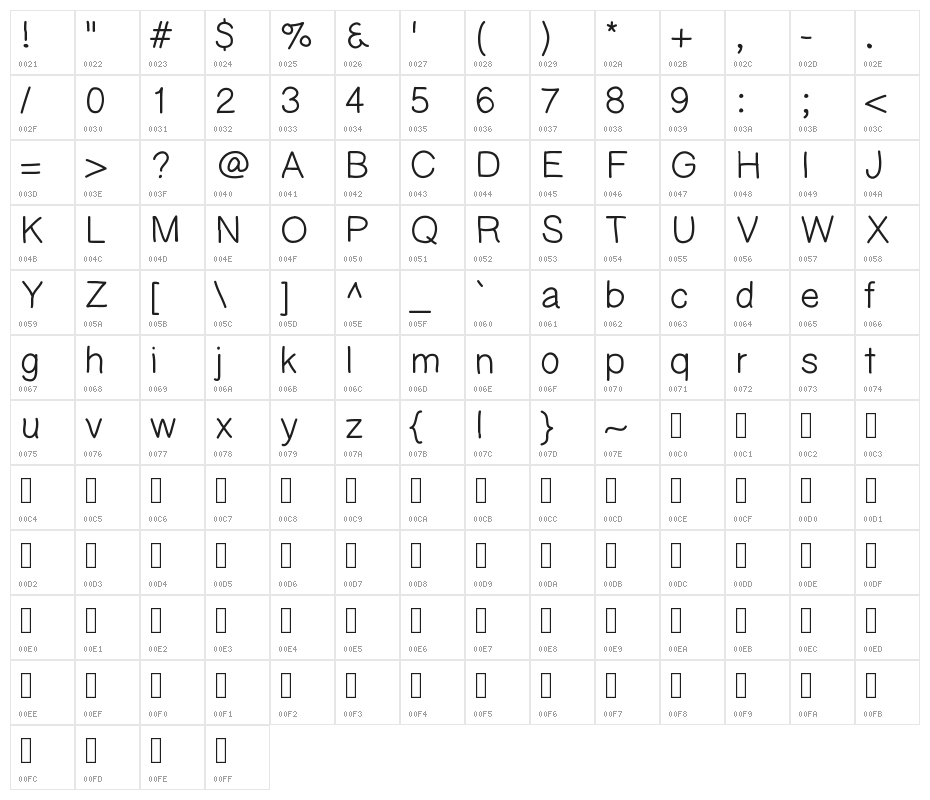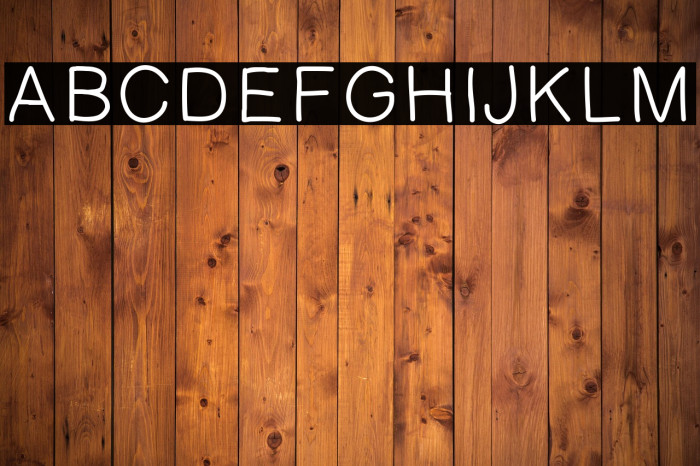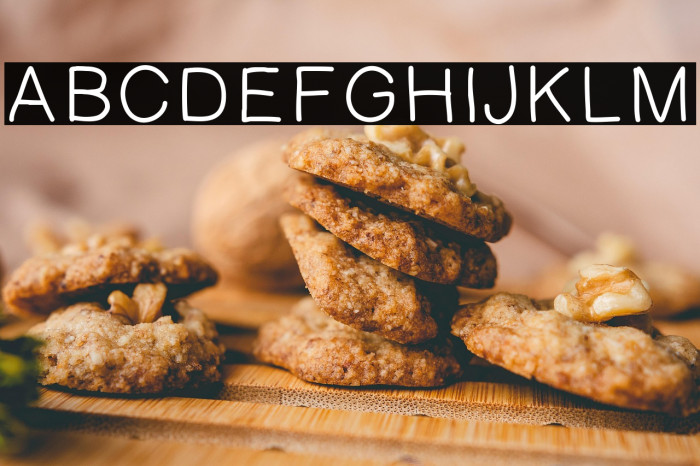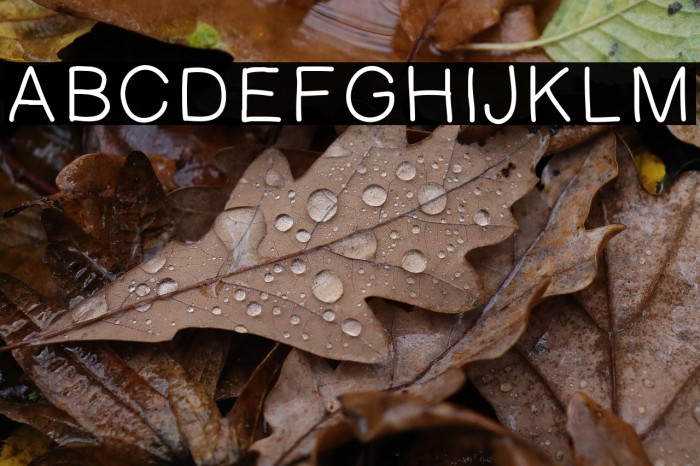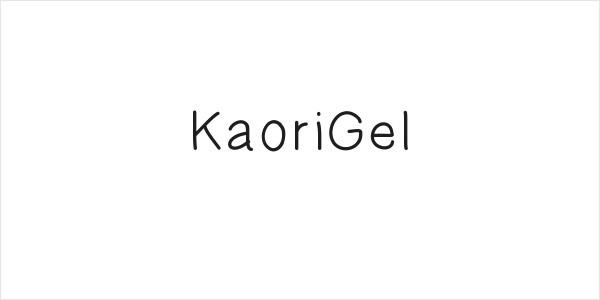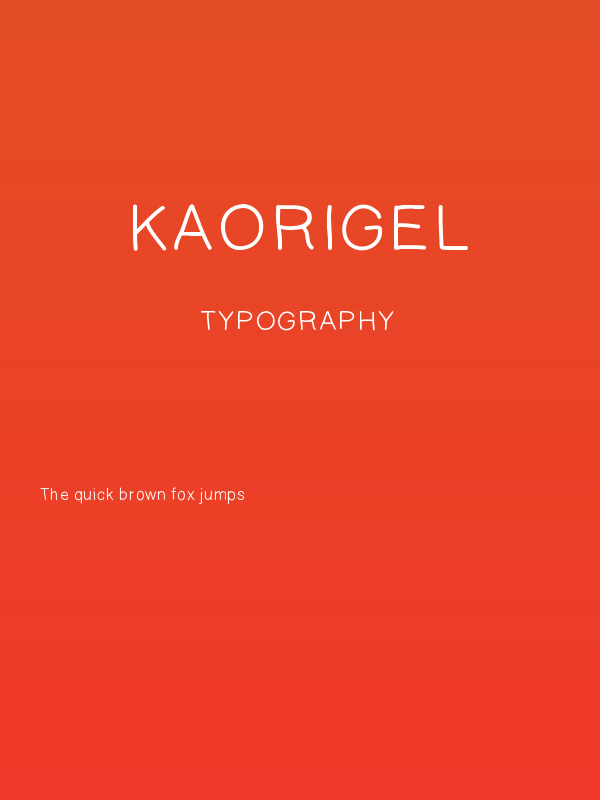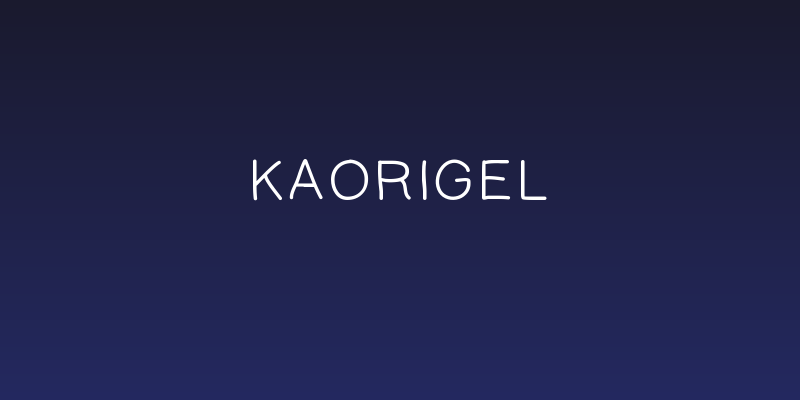
KaoriGel Font
KaoriGel Description
This font features a playful and casual handwritten style, characterized by its rounded and slightly irregular letterforms. The strokes are consistent in width, giving it a uniform appearance, while the slight tilt and uneven baseline add a touch of whimsy. The uppercase letters are bold and prominent, while the lowercase letters maintain a friendly and approachable look. Numbers and special characters are designed to match the overall style, ensuring a cohesive appearance across all text. This font is ideal for projects that require a personal and informal touch, such as invitations, greeting cards, or children's books.
| Use Case | Headlines, Informal text, Invitations |
| Proposed Projects | Ideal for invitations, greeting cards, children's books, and informal branding. |